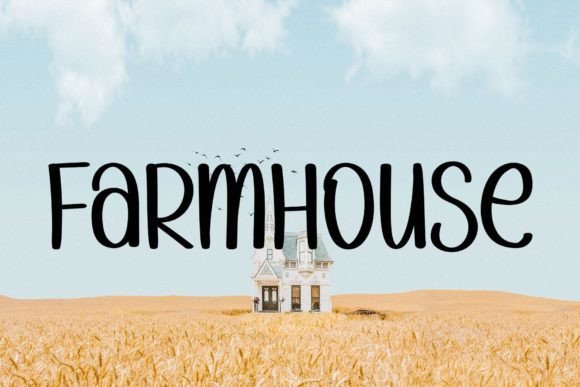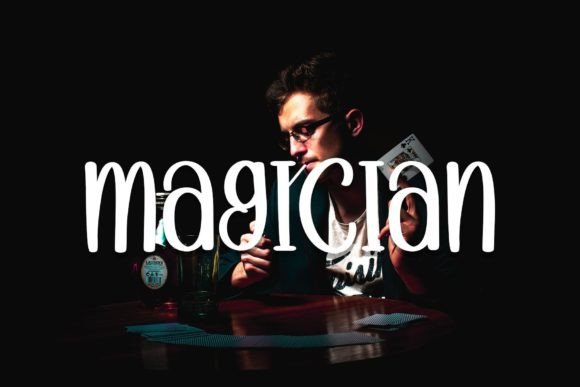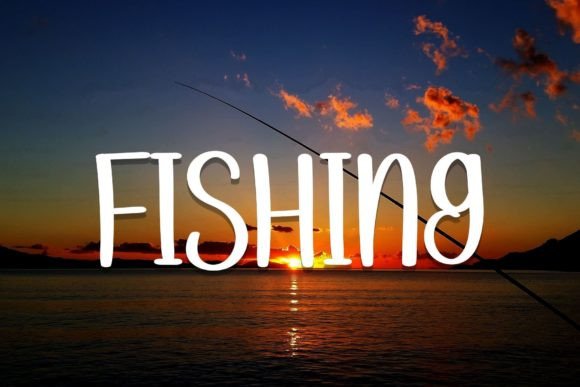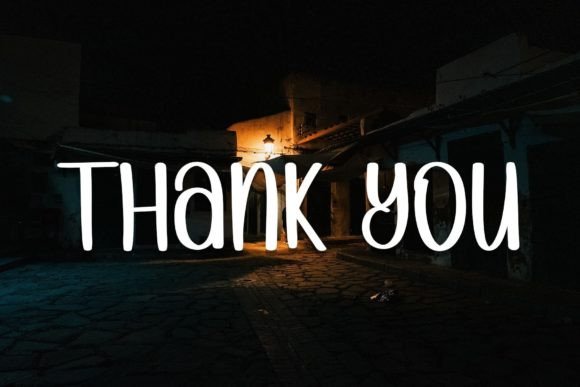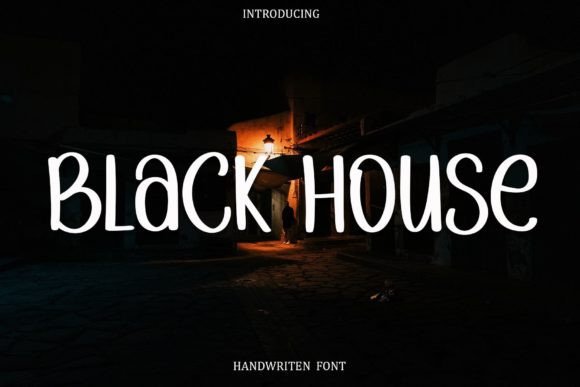
Discover the Charm of Black House Font: A Sweet and Natural Handwritten Delight
Are you a designer or crafter on the lookout for a font that adds a touch of warmth and personality to your projects? Look no further than the Black House Font, a sweet and natural handwritten font that’s as versatile as it is charming. With its unique style and effortless charm, Black House Font is the perfect addition to any design, from branding and packaging to stationery and digital media.
Handwritten fonts have a way of adding a personal touch to any design, making them feel more approachable and relatable. They evoke a sense of nostalgia and warmth, reminiscent of handwritten letters and notes from loved ones. Black House Font takes this to the next level with its natural and unique style, which is both elegant and playful.
What Makes Black House Font So Special?
So, what sets Black House Font apart from other handwritten fonts out there? Here are just a few things that make it so special:
- Natural and Unique Style: Black House Font has a one-of-a-kind look that’s both natural and effortless. Its unique style makes it incredibly fitting for a wide range of designs, from rustic and outdoorsy to modern and sleek.
- Versatility: Whether you’re working on a branding project, packaging design, or digital media, Black House Font is the perfect choice. Its versatility knows no bounds, and it’s up to you to explore all the creative possibilities.
- Easy to Read: Despite its unique style, Black House Font is incredibly easy to read, making it perfect for body text and longer blocks of content.
- Highly Legible: The font’s high legibility makes it ideal for use in a variety of contexts, from headings and titles to paragraphs and captions.
Uses for Black House Font
So, what can you use Black House Font for? The possibilities are endless! Here are a few ideas to get you started:
- Branding and Logo Design: Create a unique and memorable brand identity with Black House Font. Its natural and effortless style makes it perfect for businesses that want to stand out from the crowd.
- Packaging Design: Add a personal touch to your packaging designs with Black House Font. Its rustic charm makes it perfect for food labels, product packaging, and more.
- Stationery and Invitations: Create beautiful and unique stationery and invitations with Black House Font. Its elegant and playful style makes it perfect for weddings, birthdays, and other special occasions.
- Digital Media: Use Black House Font in your digital media projects, from social media graphics to website headers and more.
Tips for Using Black House Font
Here are a few tips for getting the most out of Black House Font:
- Experiment with Different Sizes: Black House Font looks great in a variety of sizes, from large headings to smaller body text. Experiment with different sizes to find the perfect fit for your design.
- Pair it with Other Fonts: Black House Font pairs well with a variety of other fonts, from serif and sans-serif fonts to script and display fonts. Experiment with different pairings to find the perfect combination.
- Use it in Combination with Images: Black House Font looks great in combination with images, particularly those with a natural or rustic feel. Use it to add a personal touch to your designs and make them more engaging.
In conclusion, Black House Font is a sweet and natural handwritten font that’s perfect for designers and crafters looking to add a touch of warmth and personality to their projects. Its unique style, versatility, and high legibility make it an excellent choice for a wide range of designs, from branding and packaging to stationery and digital media. So why wait? Download Black House Font today and discover the charm of this beautiful handwritten font for yourself!